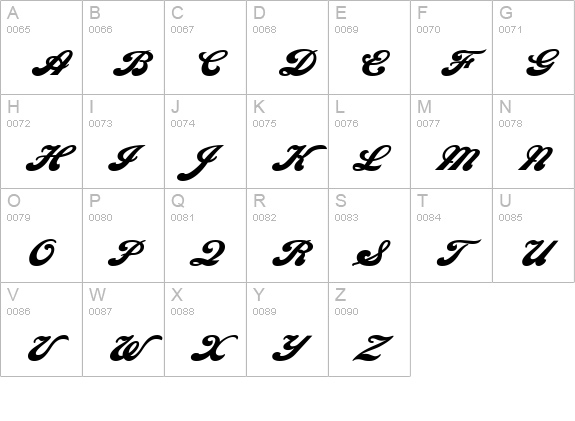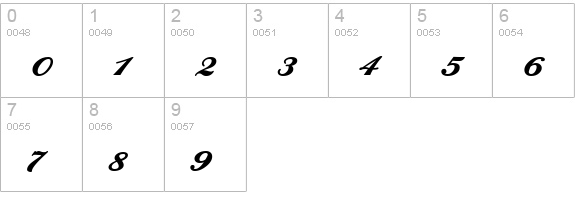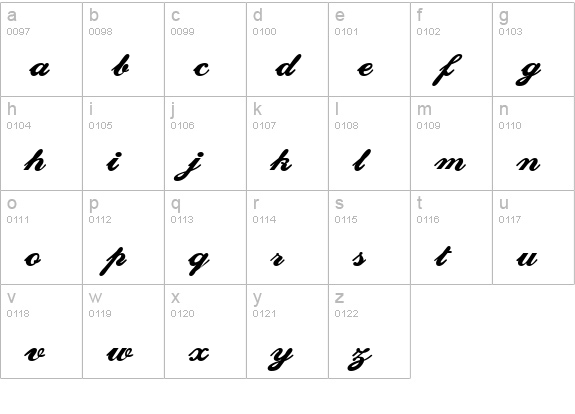
Sweden Wide Bold is a strong, high-contrast, extended-width variant in the Sweden typeface family \xE2\x80\x94 well suited to headlines, attention-grabbing titles, and strong calls-to-action.
Introducing Sweden Wide Bold font - a sleek and modern typeface that exudes elegance and sophistication. With its bold and wide letterforms, this font is perfect for making a statement in any design project. Whether you are creating a poster, logo, or branding materials, Sweden Wide Bold font will surely grab attention and leave a lasting impression. What's even better? Sweden Wide Bold font is available for free download at FontsMarket.com. Yes, you read that right - you can easily access this stunning font without breaking the bank. So why wait? Elevate your designs with the Sweden Wide Bold font today and make a bold statement with your creativity.